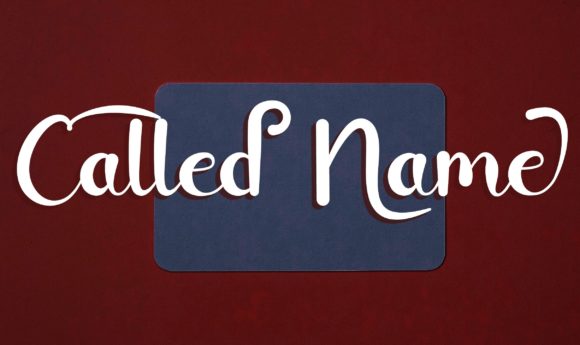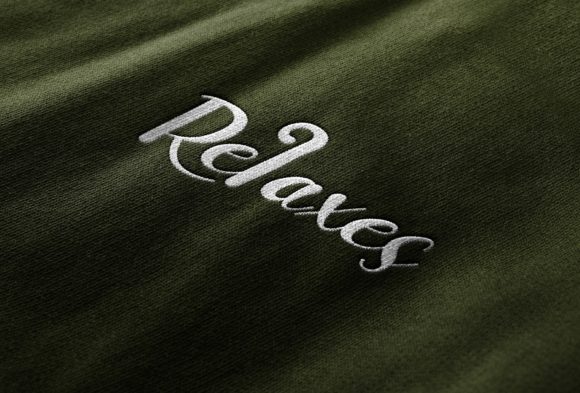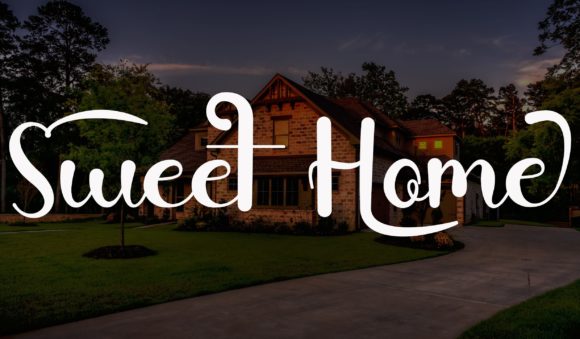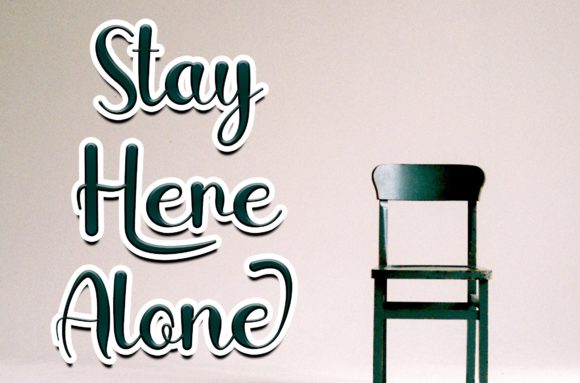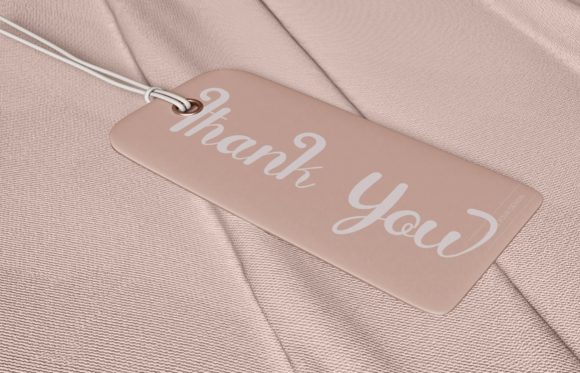
About Called Name Font
Called Name is a well-balanced handwritten font. It will add a luxury spark to any design project that you wish to create! This font is PUA encoded which means you can access all of the amazing glyphs and ligatures with ease!